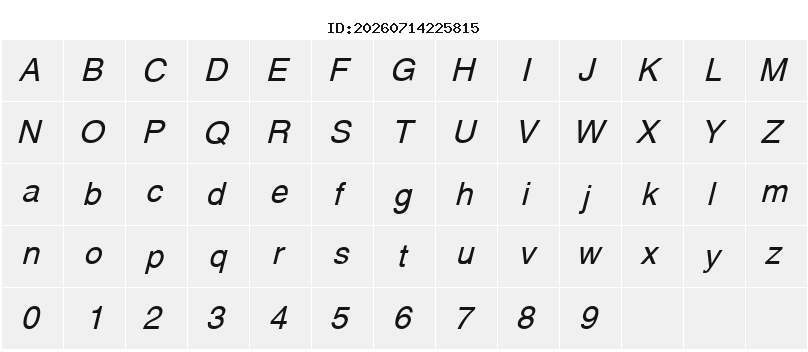
Yoxall Preview
• Font Name: Yoxall
• Font ID: DTP-Yoxall Italic
• Full Font Name: Yoxall Italic
• PostScript Name: YoxallItalic
• Character Count: 217
About Yoxall.ttf
Yoxall.ttf is a modern, elegant sans-serif font designed for ultimate readability and visual harmony. Perfect for branding, headlines, web design, and print materials.